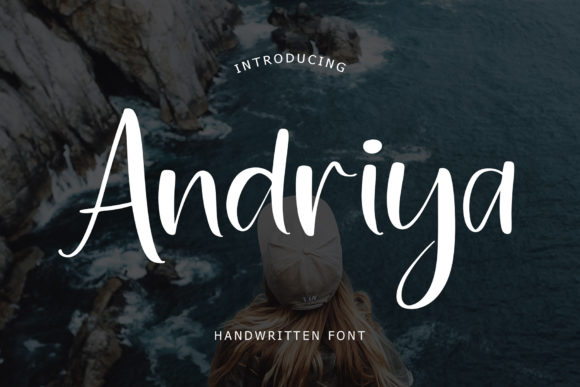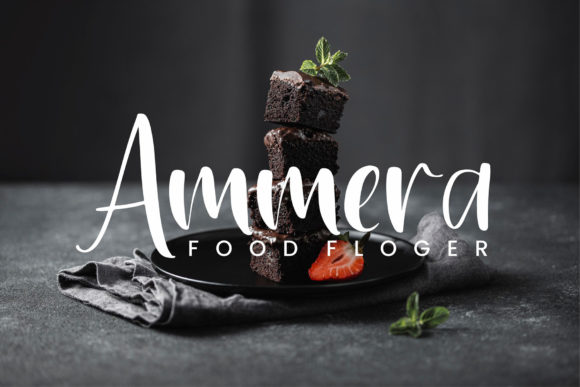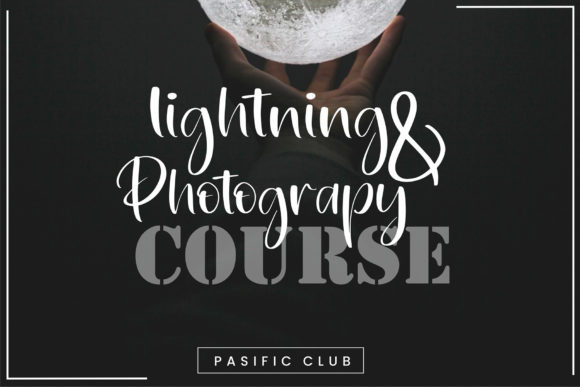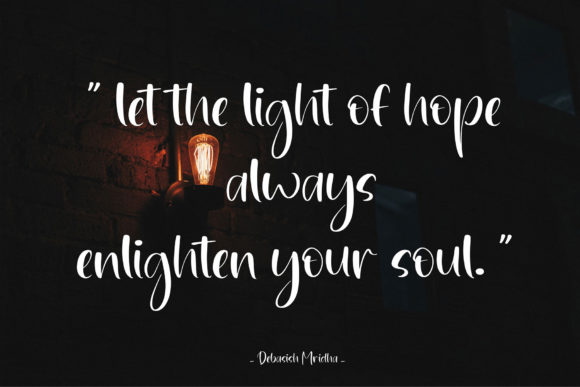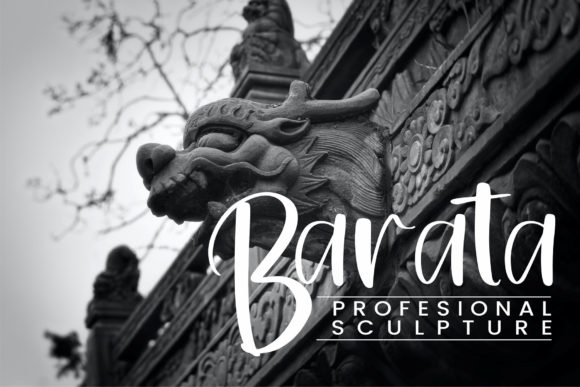
About Andriya Font
Andriya is a friendly and natural handwritten font. It has beautiful and well balanced characters and as a result, it matches a wide pool of designs. Add it confidently to your projects, and you won’t be disappointed.